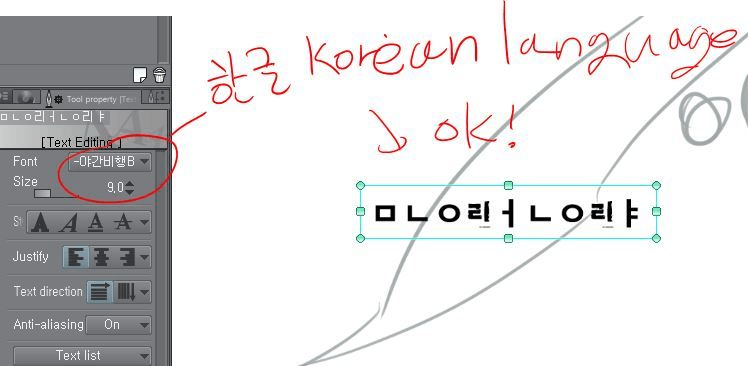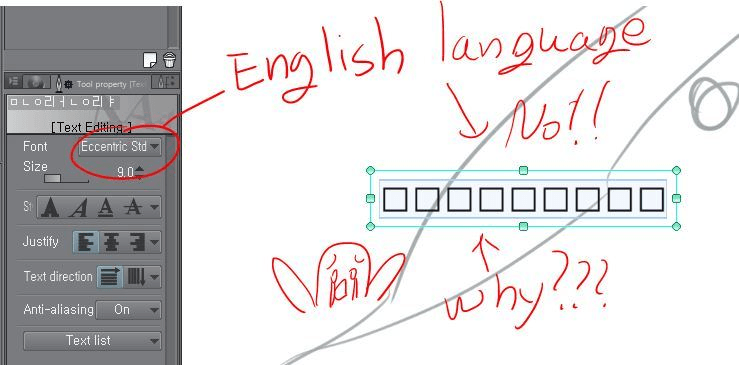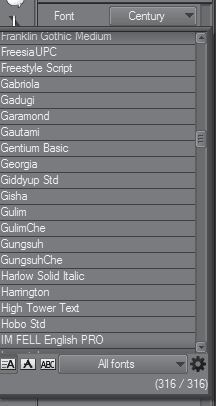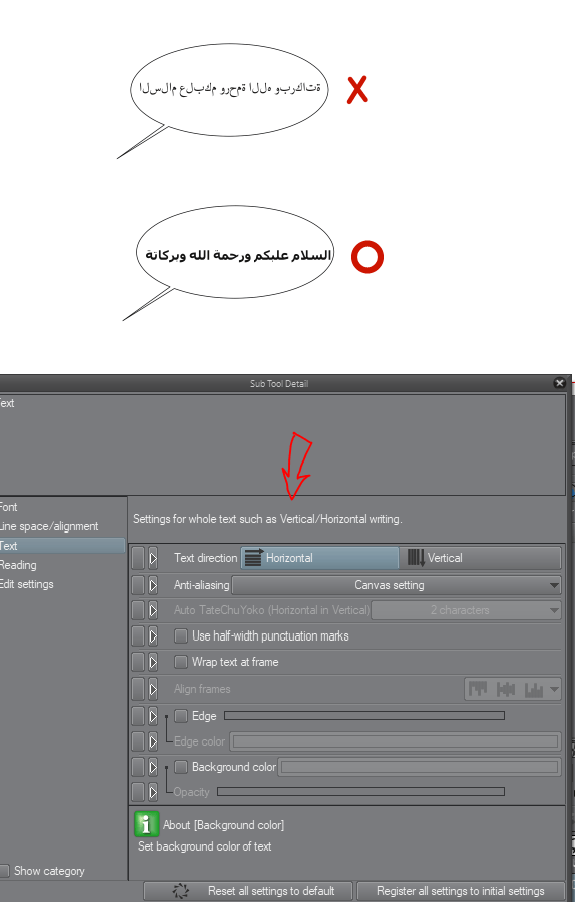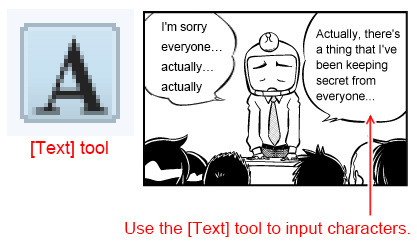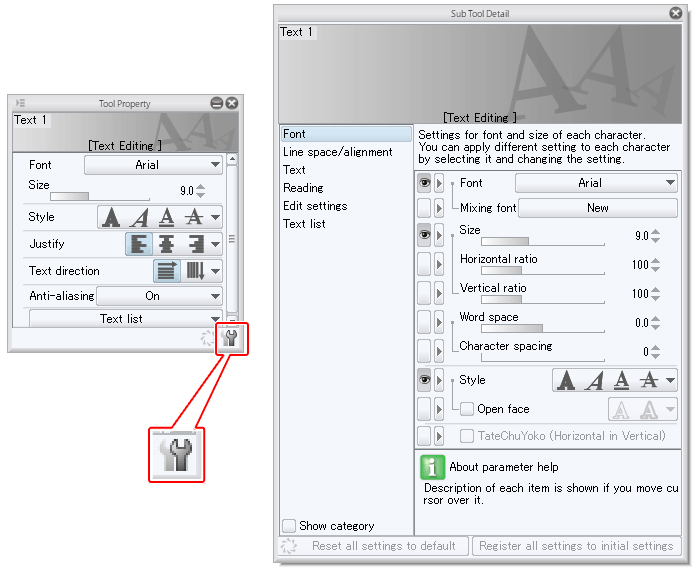
Manga Studio Fonts
Whether you want to simply enhance and perfect your pen and paper illustrations or you want to experience a completely digital creative process manga studio 5 is the ultimate software tool for comic and.
Manga studio fonts. Every font is free to download. Manga studio is a software product that allows users to scan create sketch and ink digital and softcopies of their manga and comic artwork. Clip studio paint is optimized for drawing and painting making it ideal for illustrators. My fonts 888toto is a westernus style comic font and 888manga is a manga style font.
It demonstrates how to use font lists to reduce the effort in finding fonts. This is a tutorial for manga studio 5 ex clip studio paint 131. Looking for anime fonts. Only this time there is a new text tab as shown in figure 12 1.
Click to find the best 62 free fonts in the anime style. Open finder and click the go menu at the top of the screen. The shape of the letters and the space between has been designed to be more tolerant of the lack of kerning although they are kerned fonts that do work properly in other programs. Manga studio automatically creates a new layer to hold the text and opens the layer properties palette.
Better for making comics than photoshop and other art programs it gives you infinite possibilities for telling your story. There are some advises when choose a font for your mangacomic. Clip studio paint is also ideal for illustrators who specialize in linework. Avoid comic sans at all costs die hard manga fans hate it above all else.